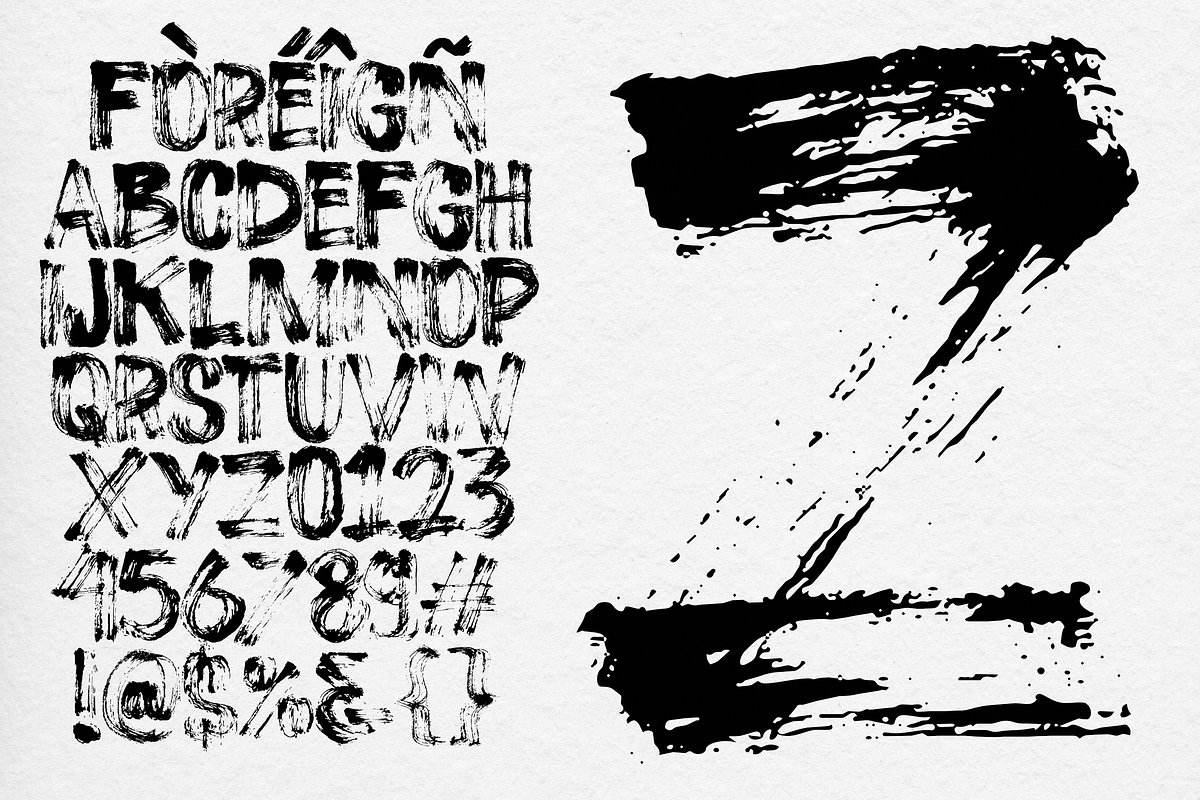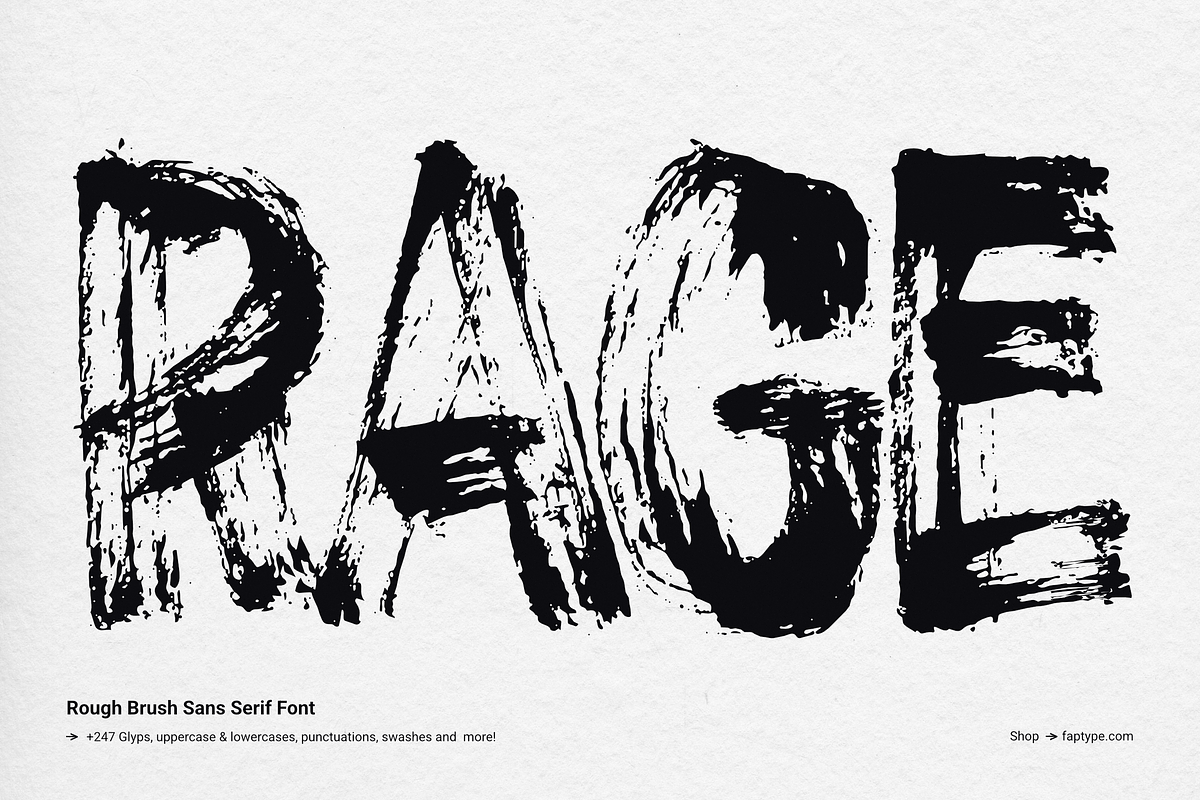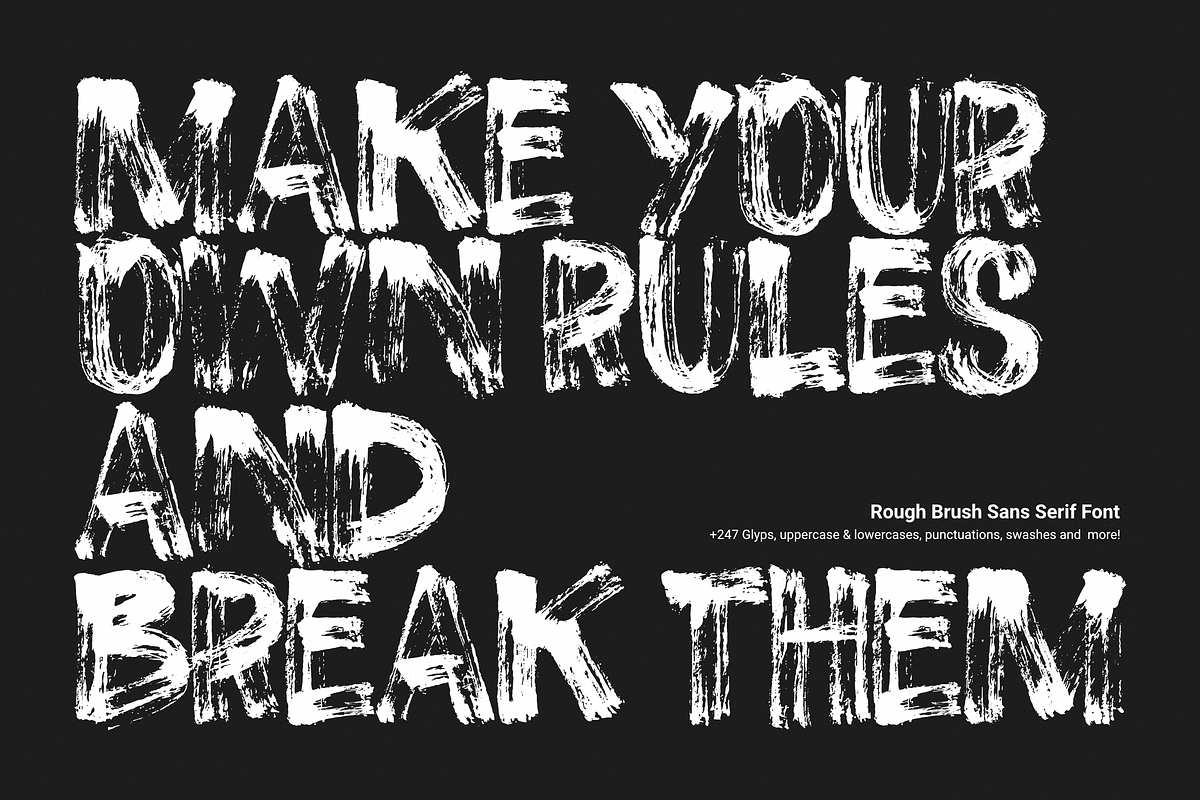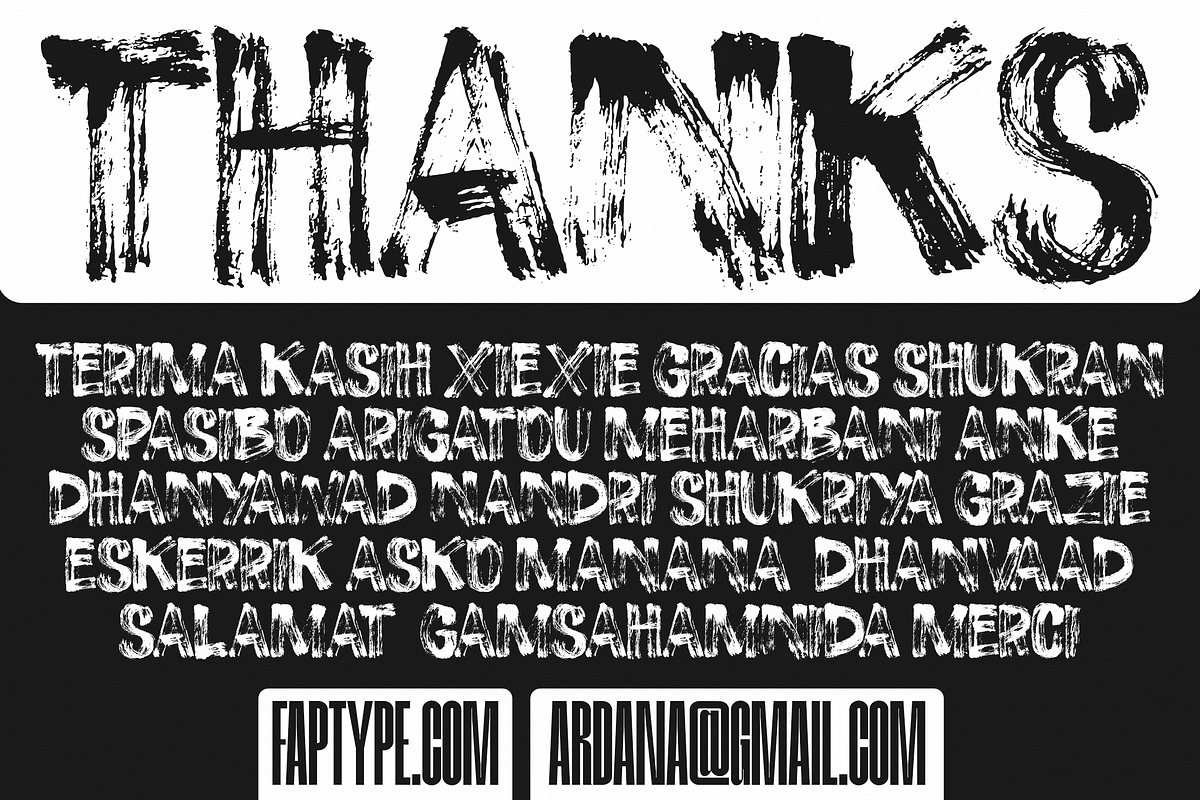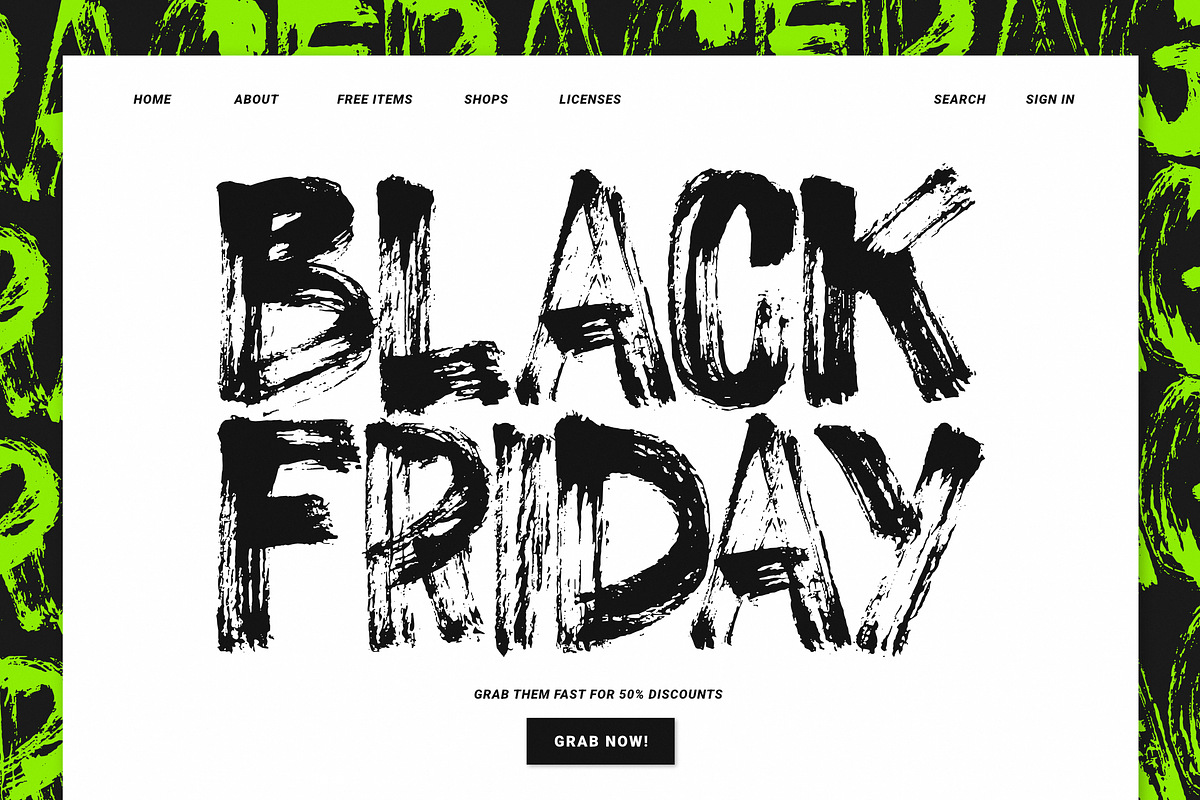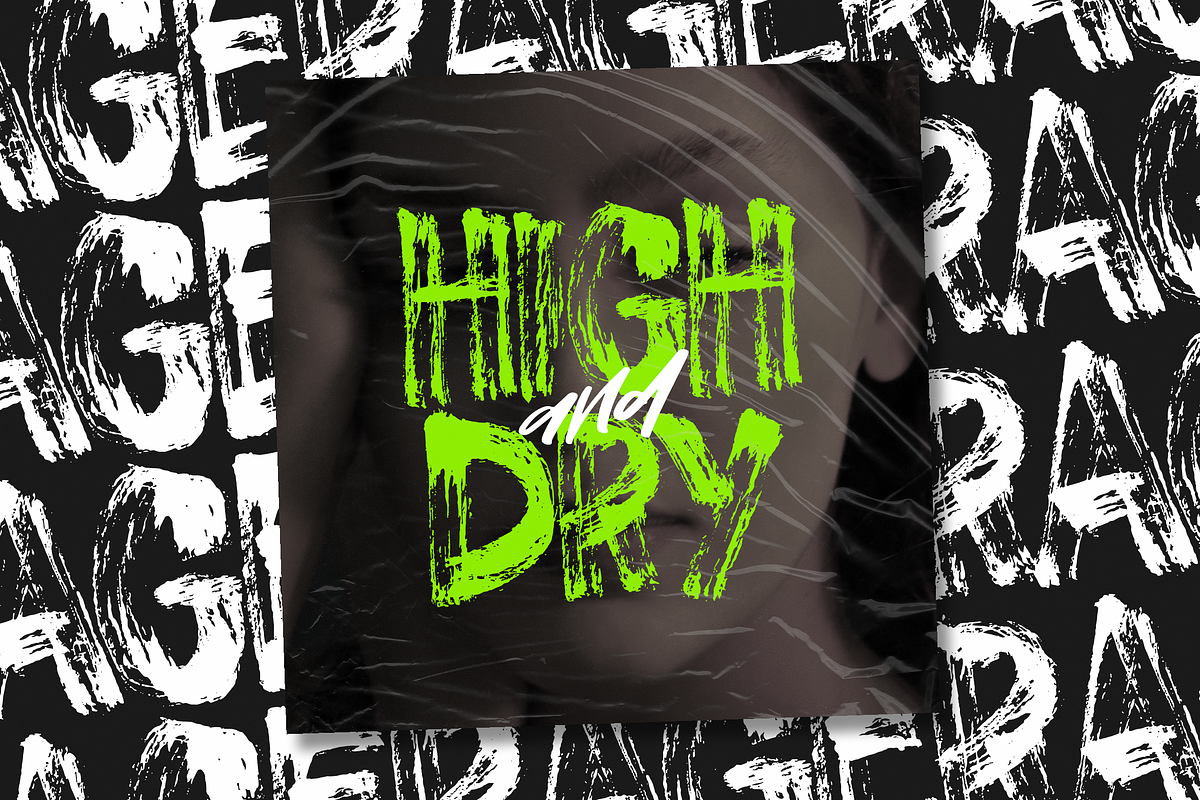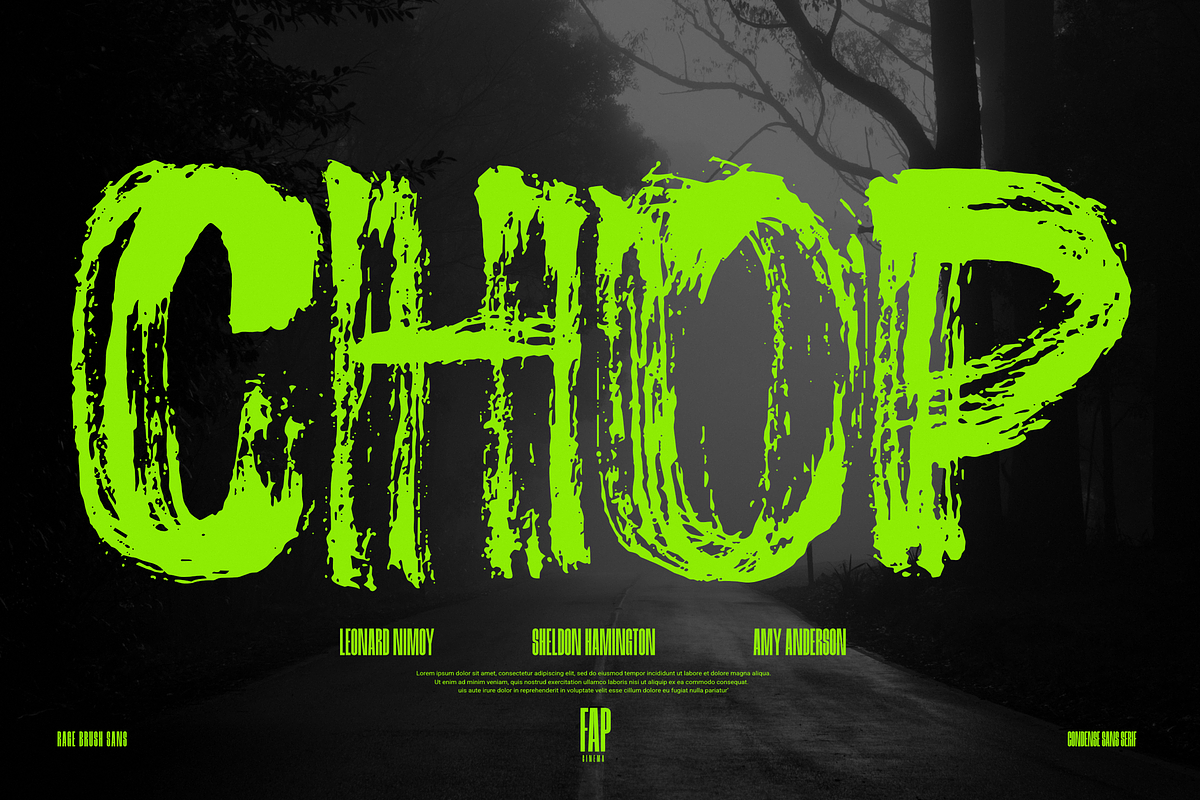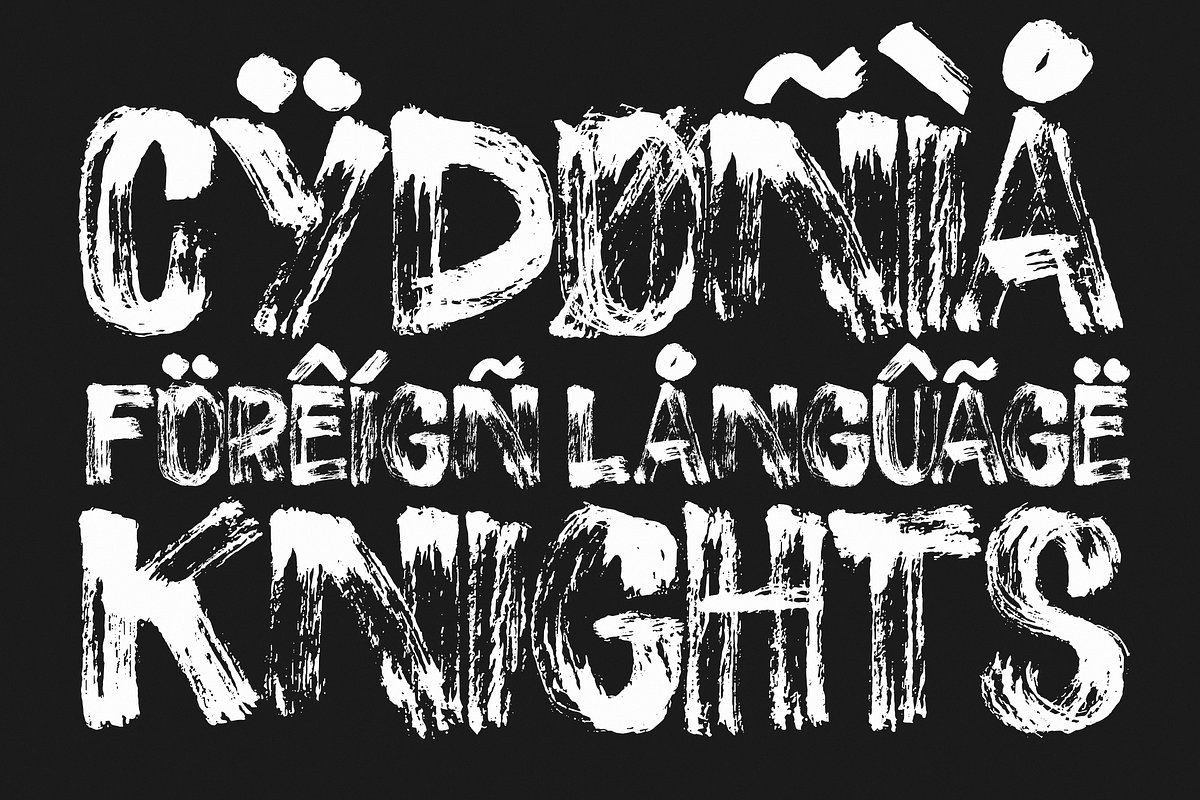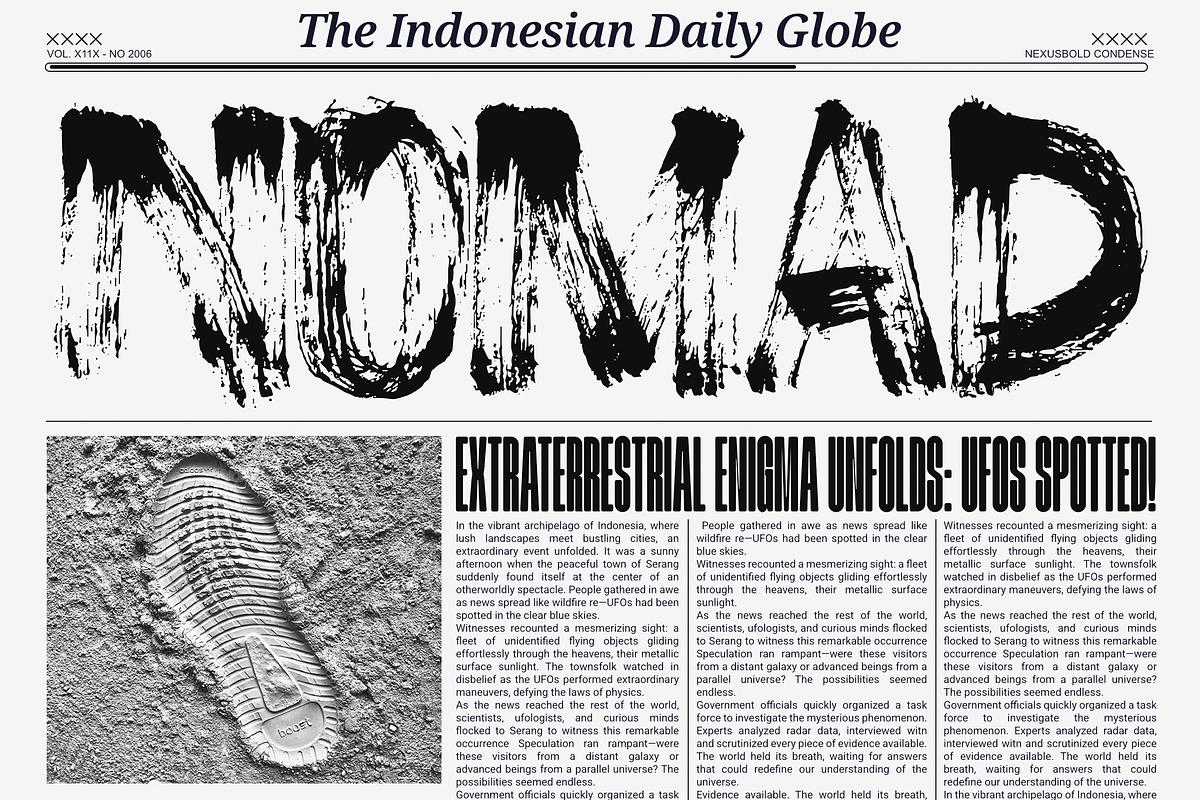
Rage | Rough Brush Sans Serif Font
Rage is a bold rough brush sans serif font created with a Tombow Fudenosuke Brush, featuring a strong uppercase structure combined with an authentic dry and distressed brush texture.
The typeface is intentionally imperfect, with irregular edges, broken strokes, ink variations, and rough details that create a raw and energetic handmade appearance. Unlike traditional brush script fonts, Rage maintains a recognizable sans serif construction while introducing expressive brush imperfections throughout the letterforms.
Rage is designed especially for display typography where a bold, gritty, and handcrafted visual character is needed.
Rough brush sans serif style
Bold and expressive letterforms
Authentic dry-brush texture
Hand-brushed with Tombow Fudenosuke Brush
Uppercase characters
Numerals included
Punctuation included
Symbols included
Distressed and irregular brush details
Suitable For
Branding
Logo design
Posters
Headlines
Editorial layouts
Album artwork
Advertising
Typography compositions
Packaging design
Digital artwork
Creative campaigns
Display typography
Character & Style
Rage combines the clean foundation of a sans serif typeface with the unpredictable nature of a real brush stroke. The result is a typeface that feels rough, raw, energetic, and handmade while remaining bold and readable at display sizes.
Its distressed texture and irregular edges make Rage particularly effective when you want typography to feel less polished and more spontaneous.